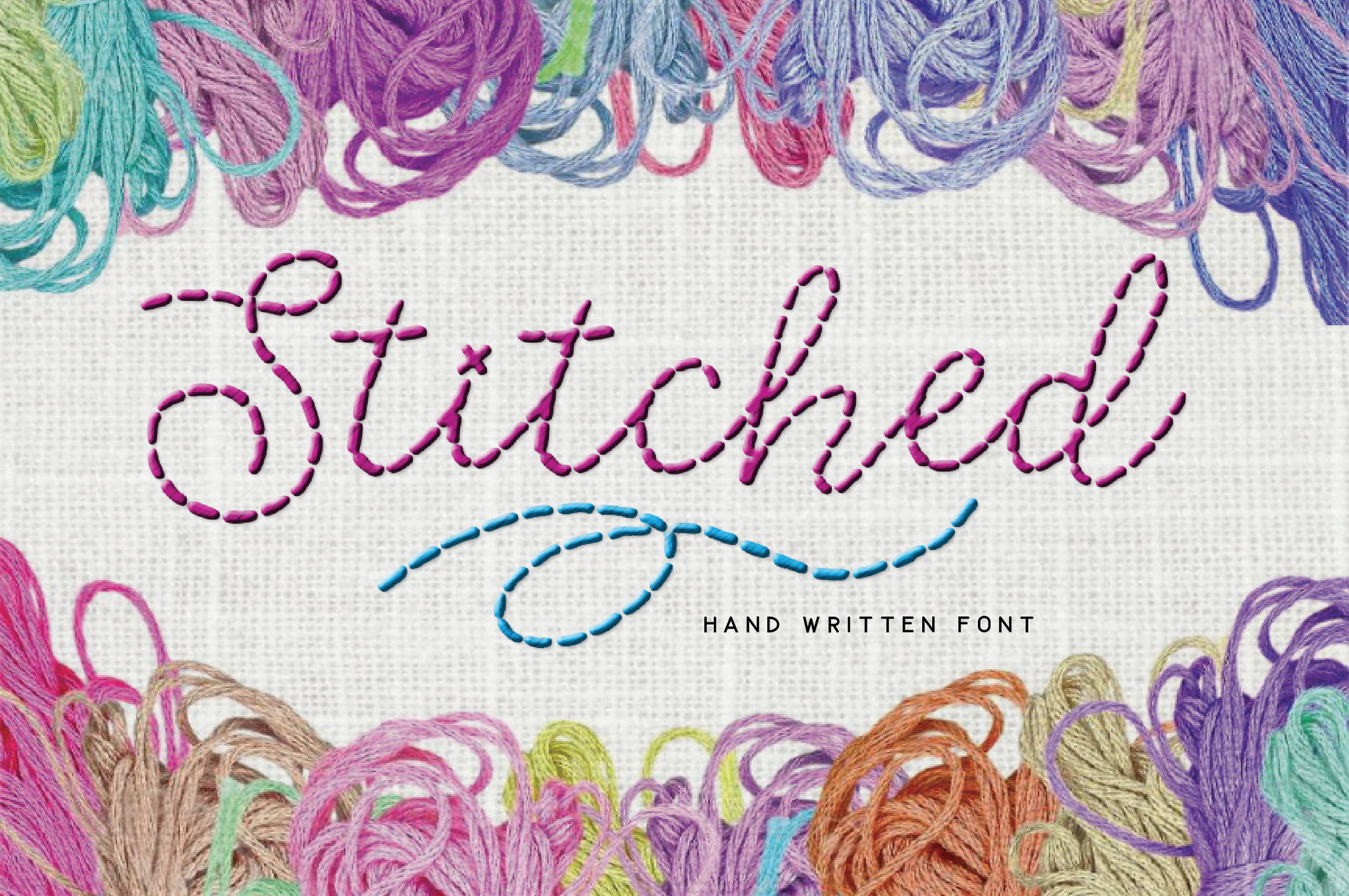
Stitched hand written font
Stitched Hand Written Font.
Stitched is a hand drawn font with an interesting mix of elegance and hand craftsmanship. Perfectly reproduces the look of hand sewing with slight but intentional imperfections to give an authentic result. Layer it up with textures, colours and dimension and make those stitches pop!
Inspired by the artisans craft of hand sewing, this is an ideal font for any project or business where stitching is an integral part of the process. Fabric, leather, fashion, tailoring, books, furniture – your imagination is the only limit. Ideal for branding, logos, headlines, labels, posters, inspirational messages and more.